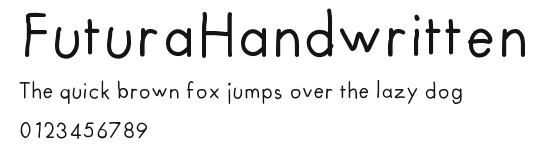
About FuturaHandwritten.ttf
FuturaHandwritten.ttf is a modern, elegant sans-serif font designed for ultimate readability and visual harmony. Perfect for branding, headlines, web design, and print materials.